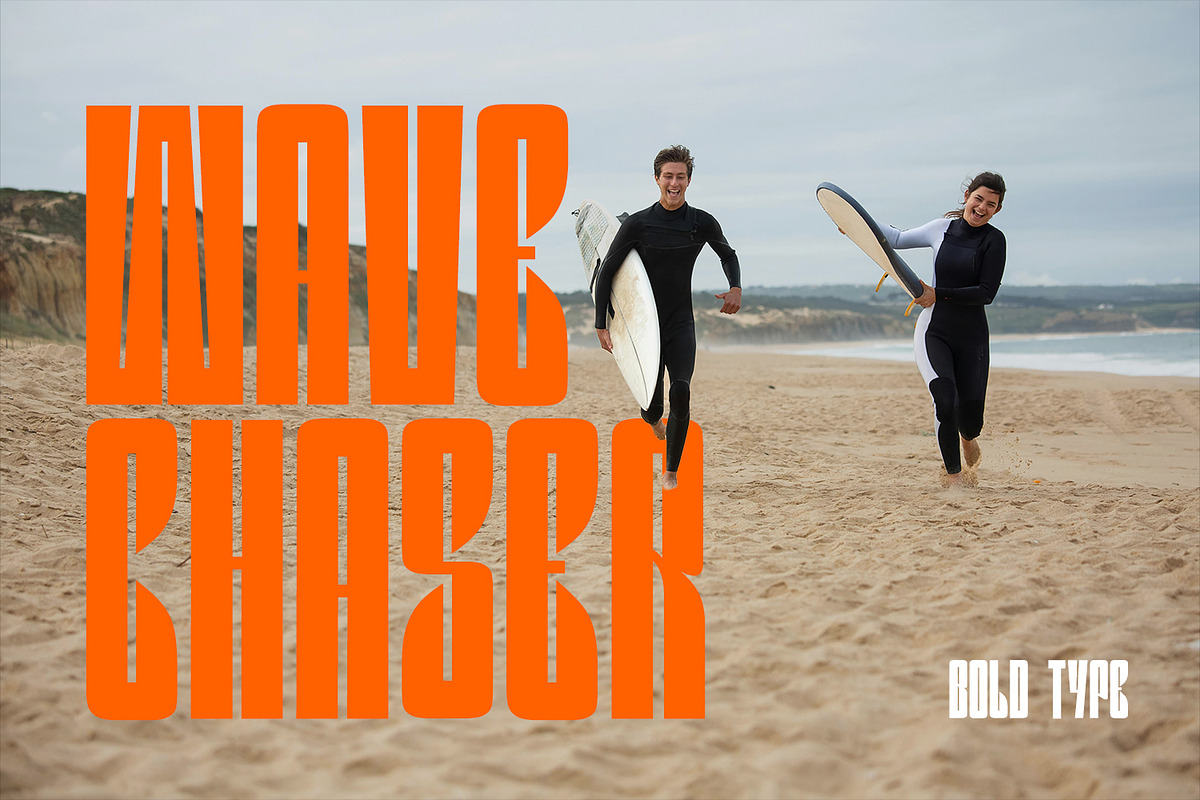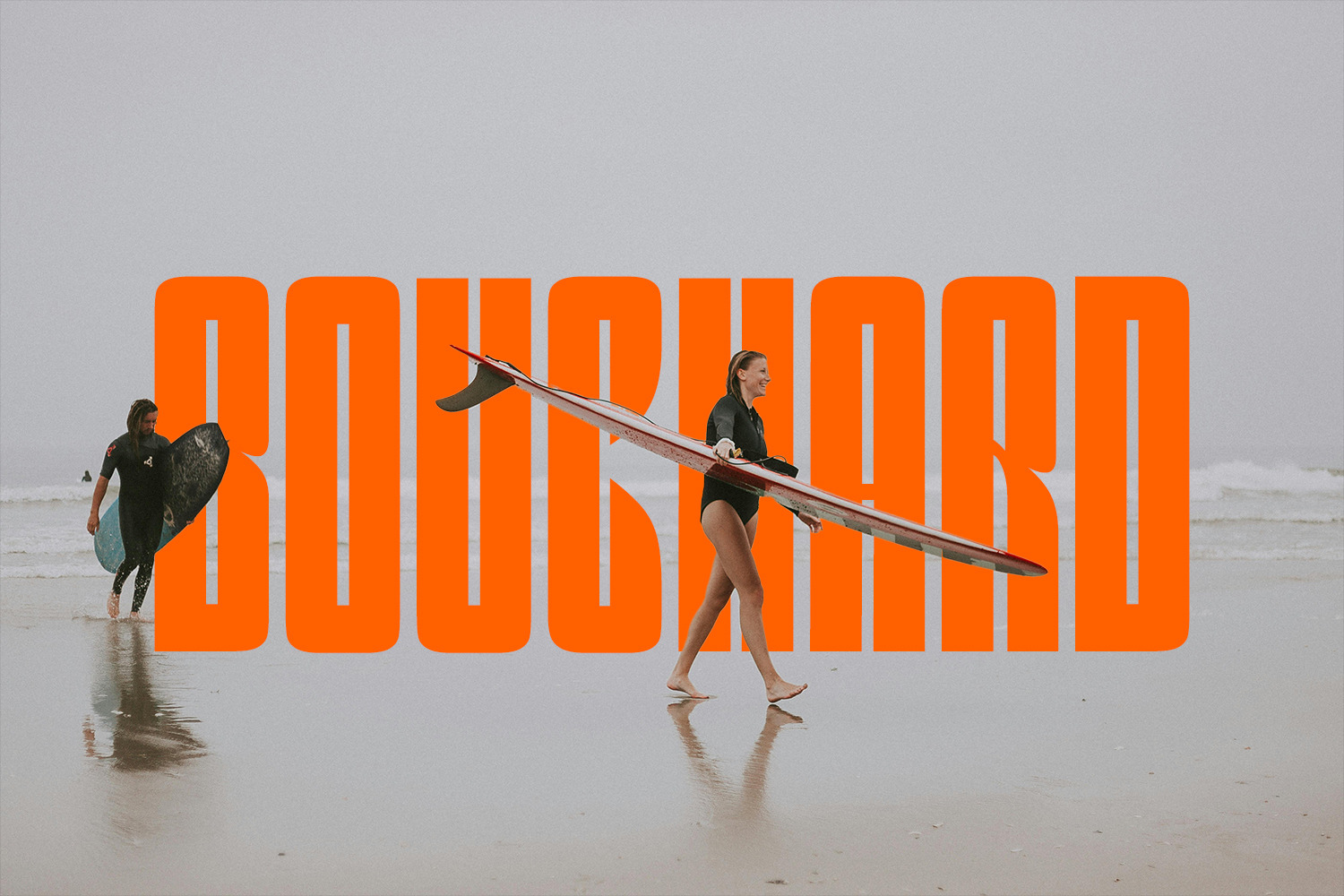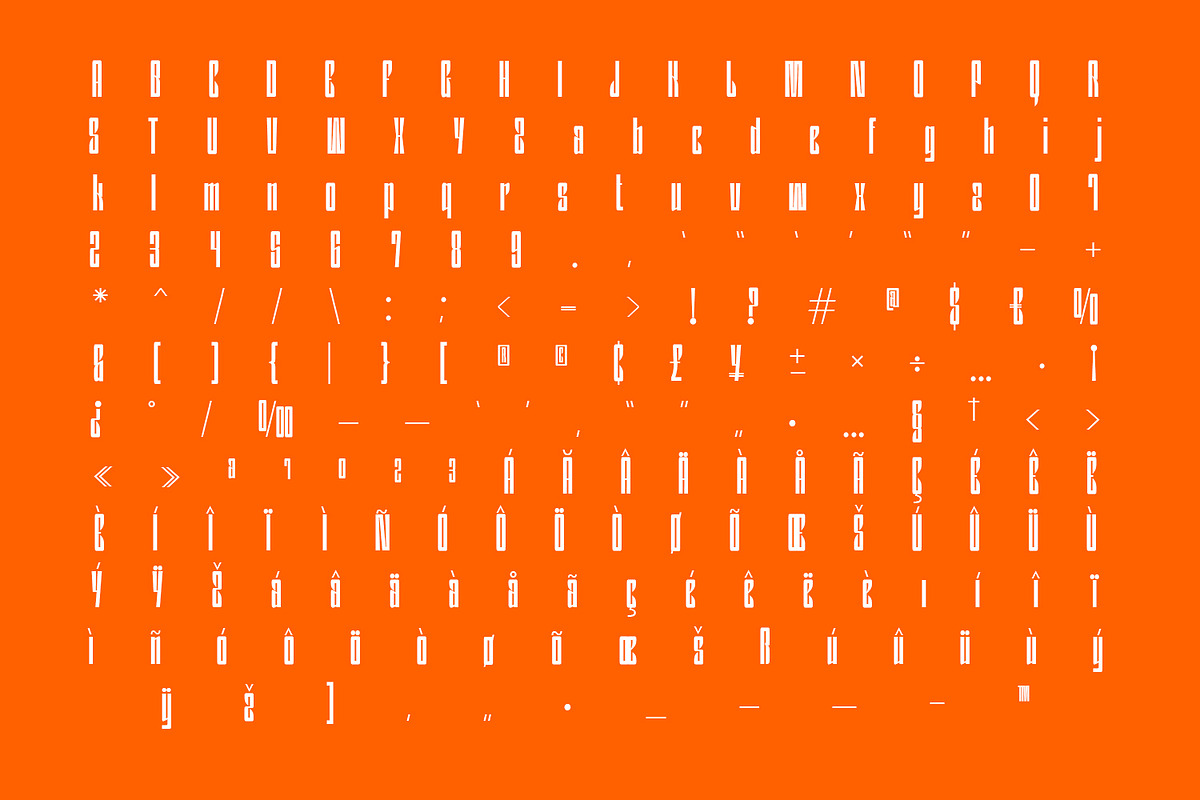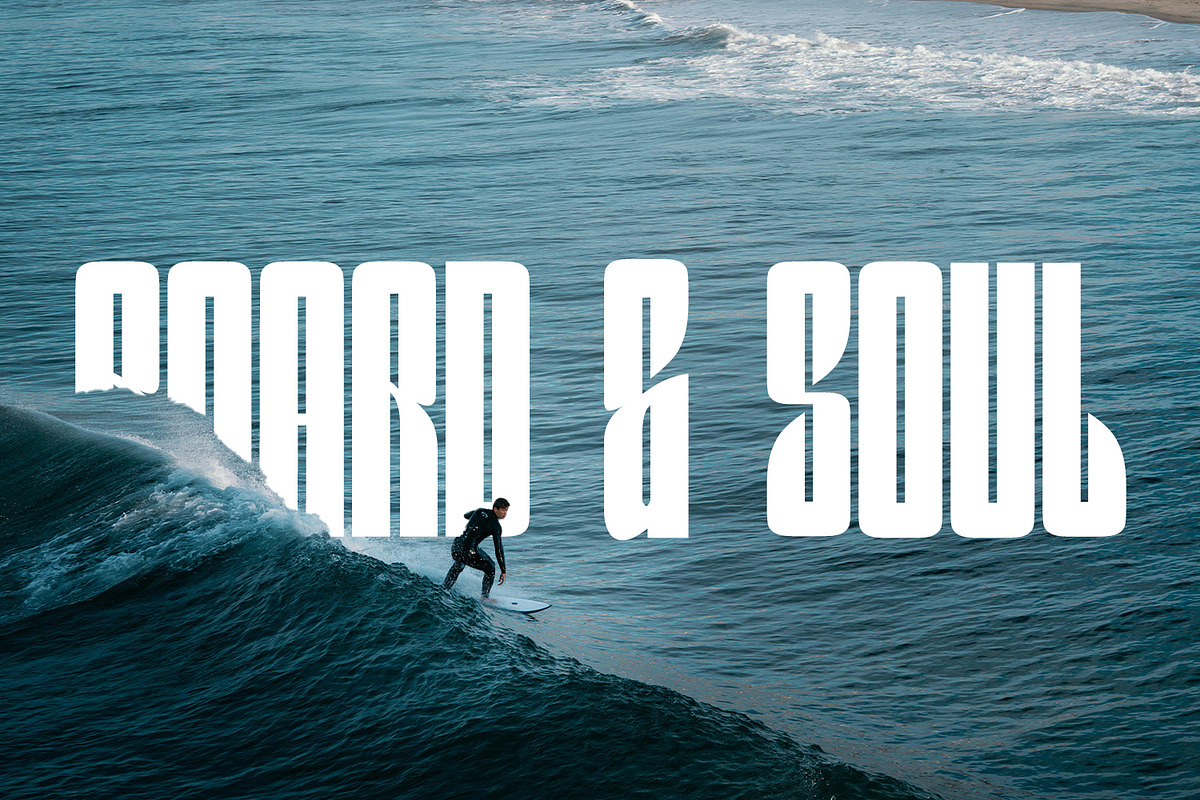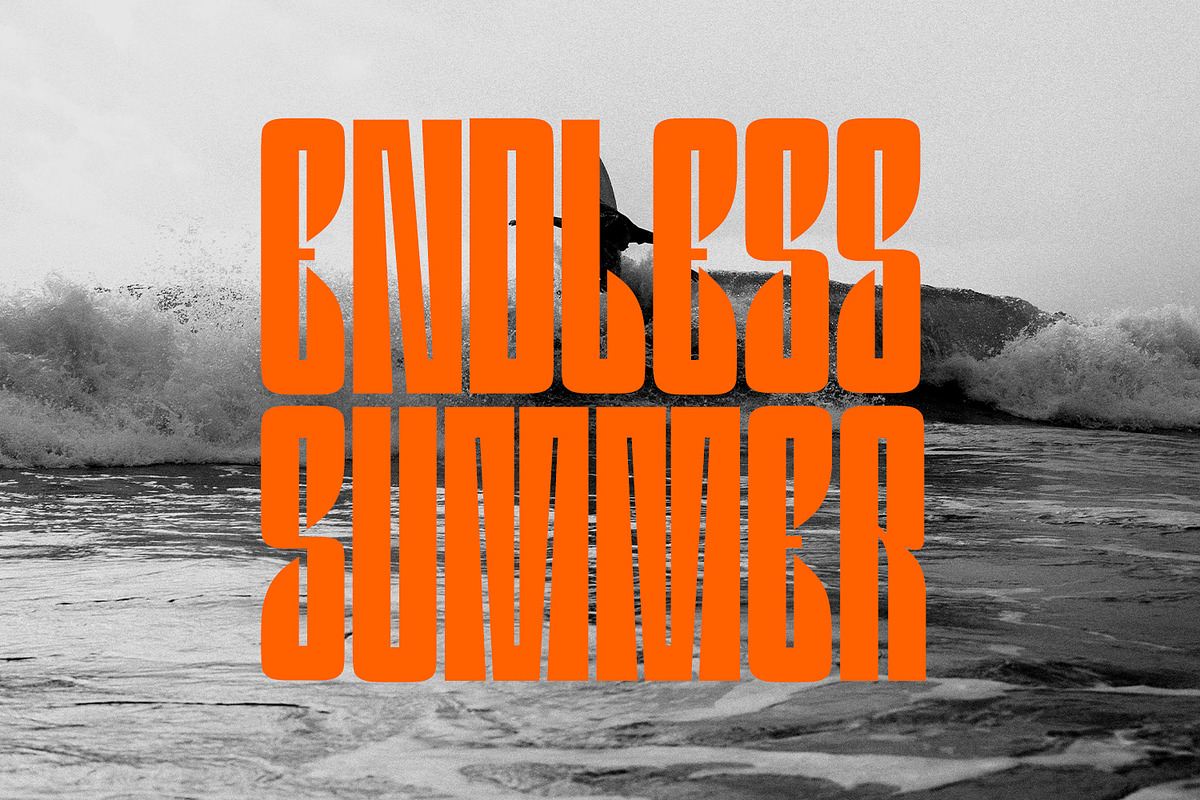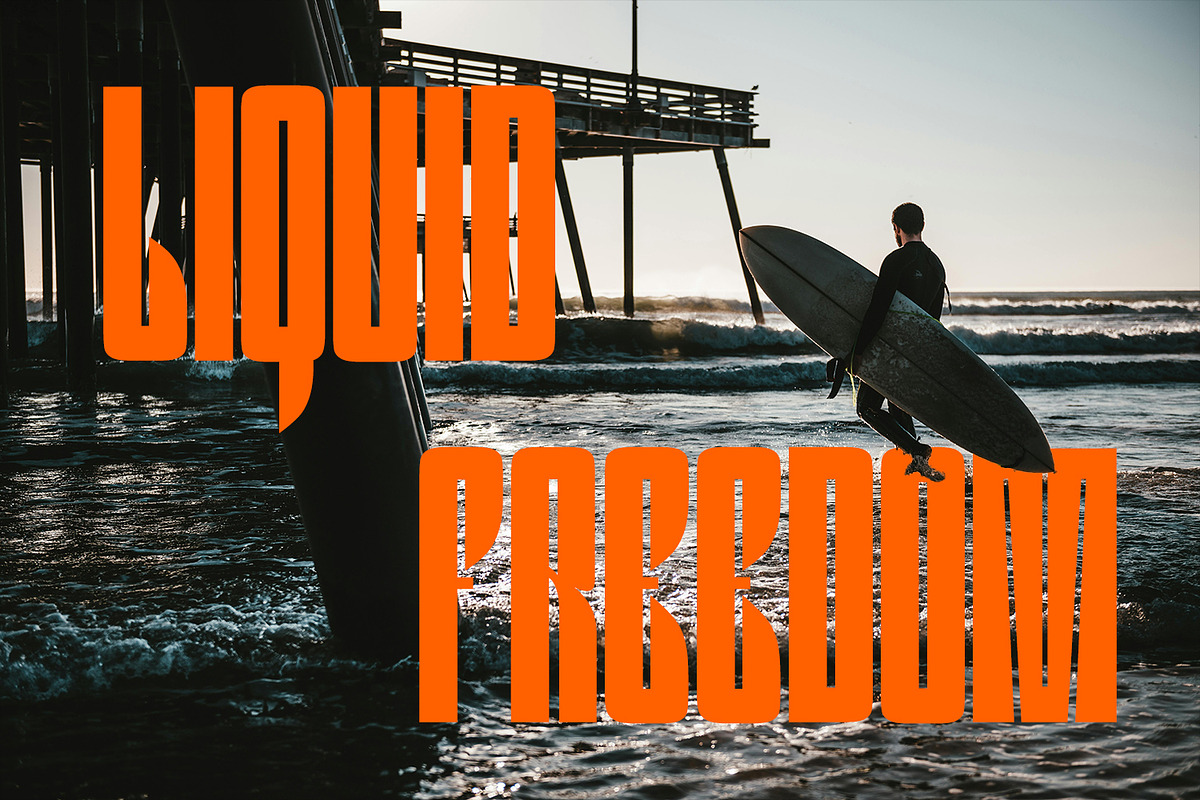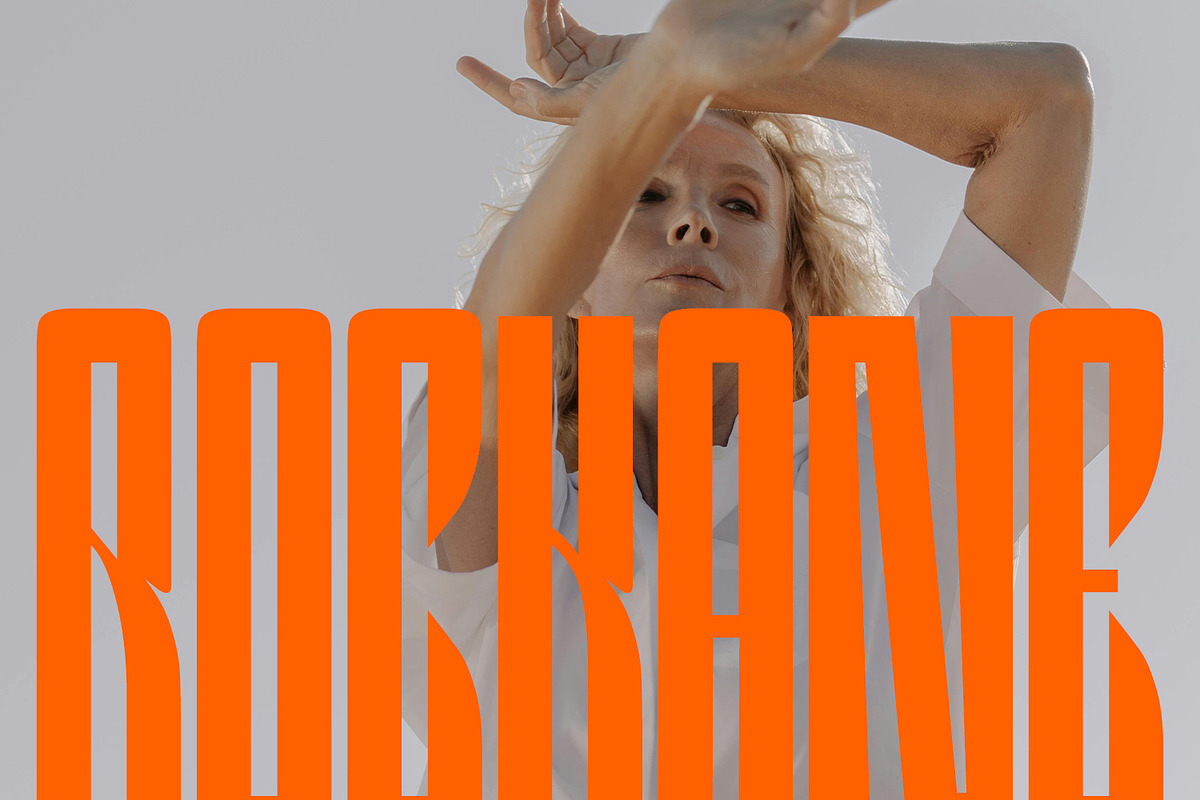
Bouchard Font
Bouchard is a modern and clean typeface designed to bring elegance, clarity, and bold presence to any visual project. With its refined letterforms and sleek construction, Bouchard strikes a perfect balance between contemporary minimalism and professional sophistication.
Featuring 4 carefully crafted weights—Regular, Medium, SemiBold, and Bold—Bouchard offers excellent versatility for a wide range of design needs. Whether you're designing brand identities, magazine covers, packaging, posters, or digital content, this font adapts seamlessly to both print and screen applications.
Each weight has been meticulously developed to maintain visual harmony, legibility, and style. The font’s subtle curves, sharp lines, and spacious proportions make it a standout choice for headlines, titles, and creative branding projects where readability and elegance matter most.
- 4 Weights – Regular / Medium / SemiBold / Bold
- Clean, modern, and highly legible design
- Suitable for: Branding, Posters, Editorial Design, Headlines, Product Packaging, Web Design, and more